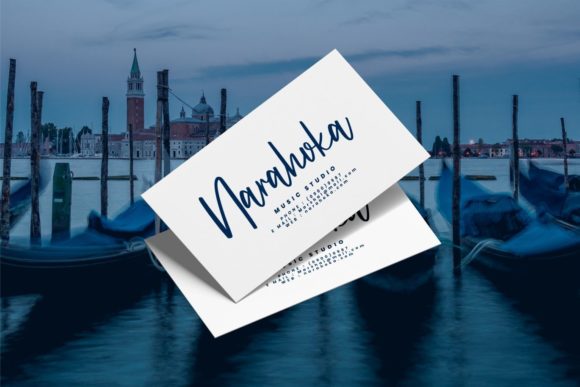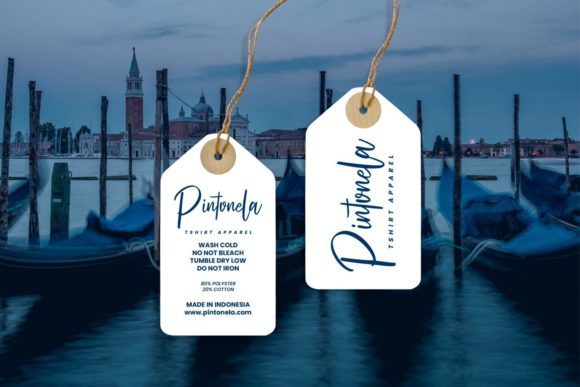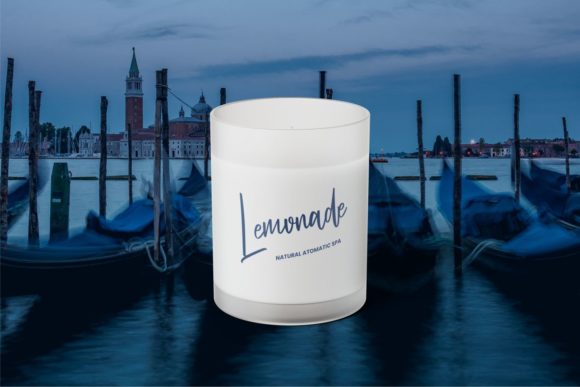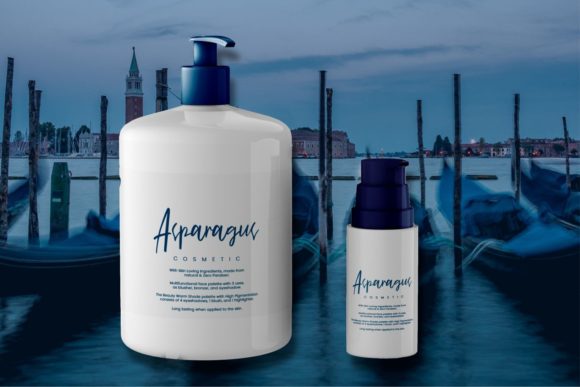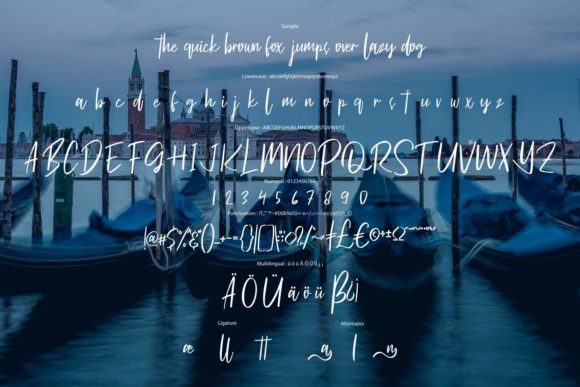
Introduction to Gadlony Font
Gadlony is a sophisticated handwritten font that’s great for delivering any message with confidence, authenticity and charm.
It will elevate a wide range of crafting ideas, from cards, to branding, labels and much more .
Gadlony Font offers exceptional quality and versatility, making it a valuable addition to your design toolkit. Whether you’re creating for personal projects or commercial use, Gadlony Font delivers professional results.